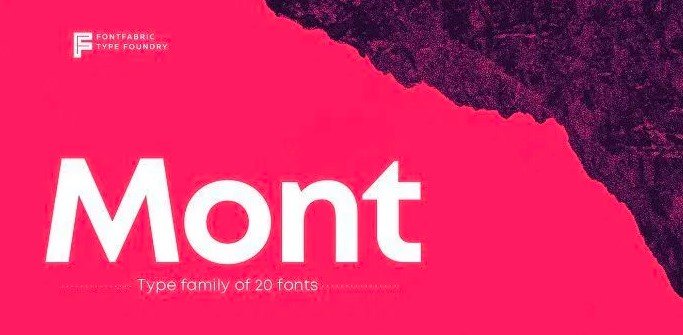
Mont is a distinctive, stylish, and popular sans serif typeface created and shared by FontFabric, a renowned font foundry. It features sleek geometric characters, both uppercase and lowercase.
Style | Sans Serif |
Designer | Fontfabric |
- Event and conference spaces
- Museum exhibitions
- Images for websites and blogs
- Apps
- Office branding
- Images for websites and blogs
What Type of Font Is Mont?
Mont is one of the best sans serif font that is designed and presented by Fontfabric.
What's the Closest Font to Mont?
The Raleway font is very close to the Mont font.